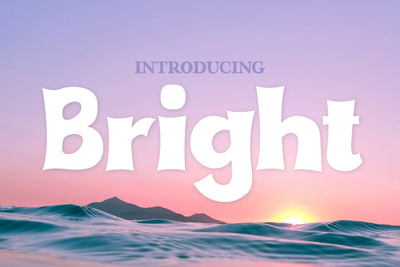
Bright Font
Bright is a cute, fun, and cool-styled display font. It is the perfect font for titles or words needing a more dramatic emphasis. Whatever the topic, this font will be a wonderful asset to your font library, as it has the potential to enhance any creation.